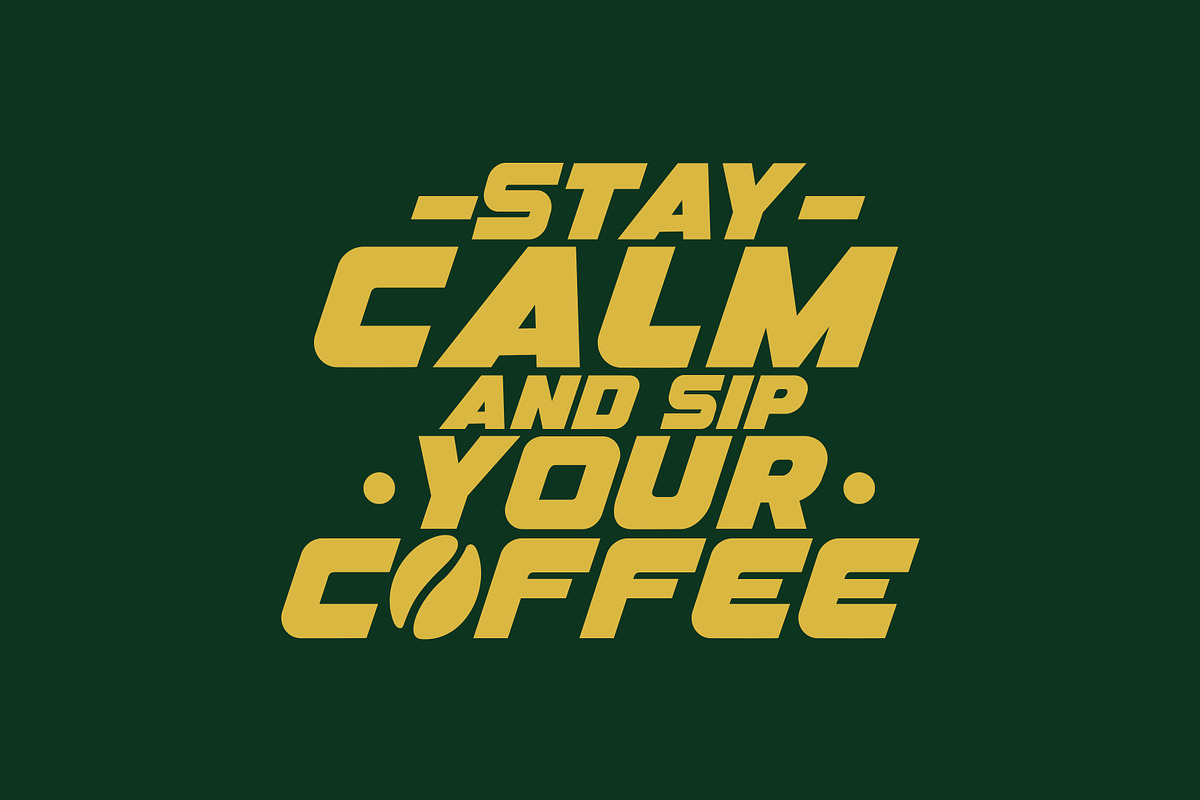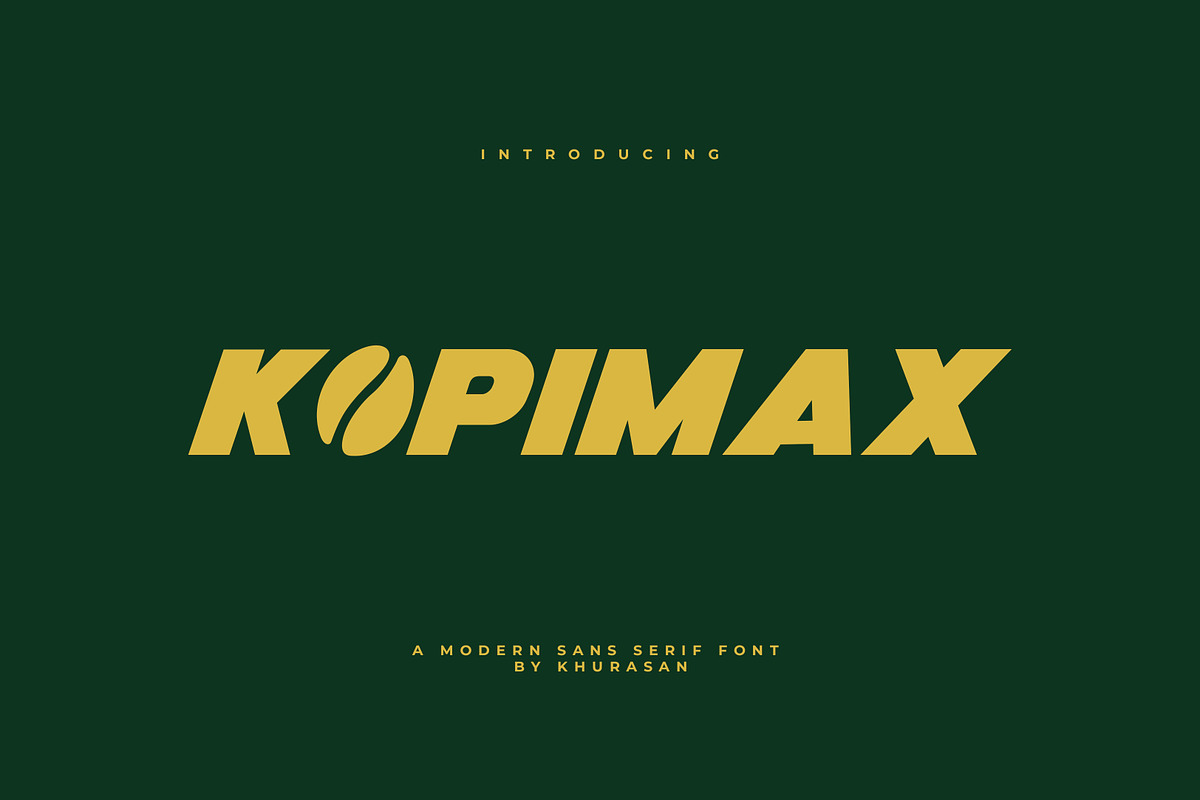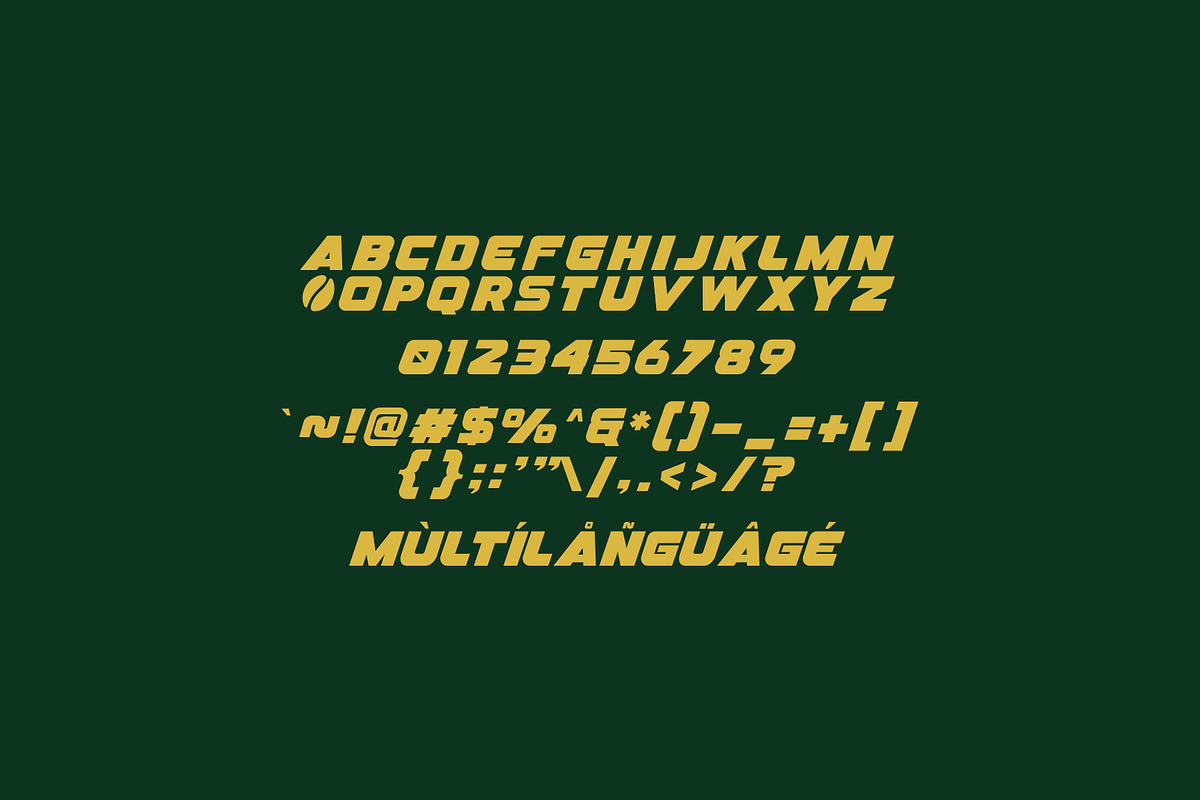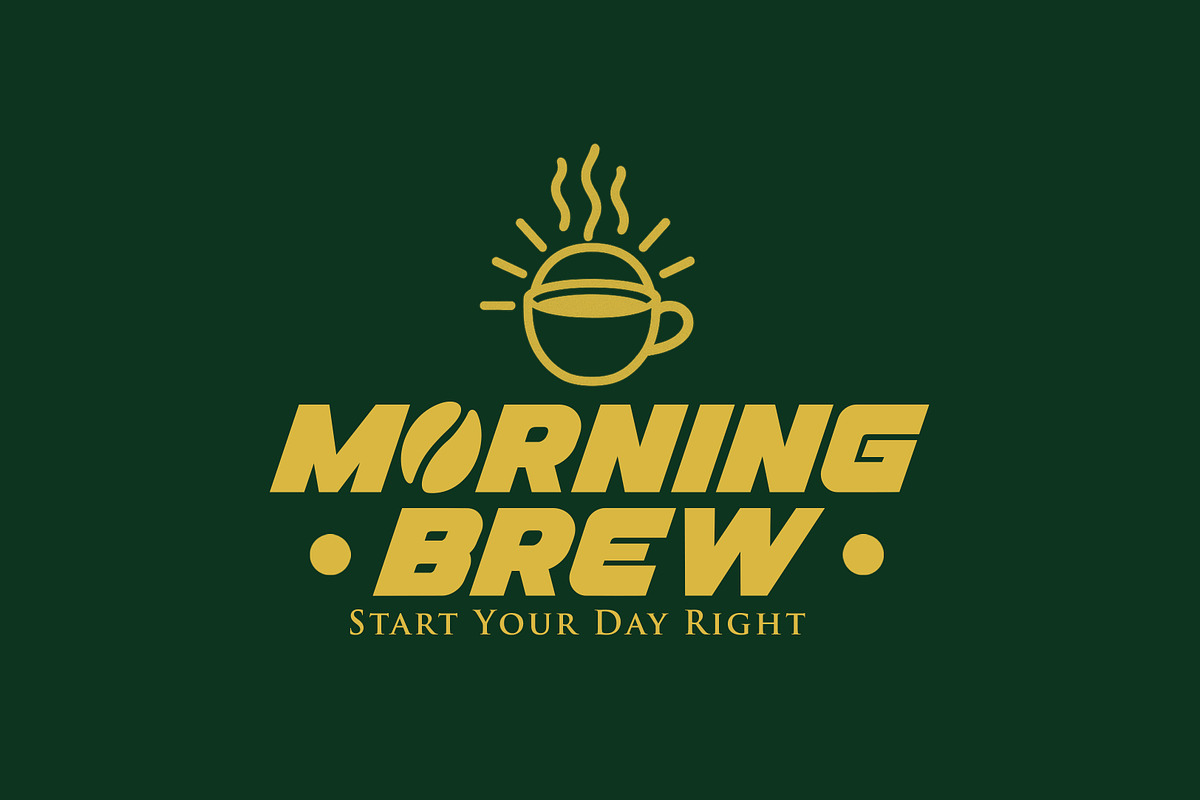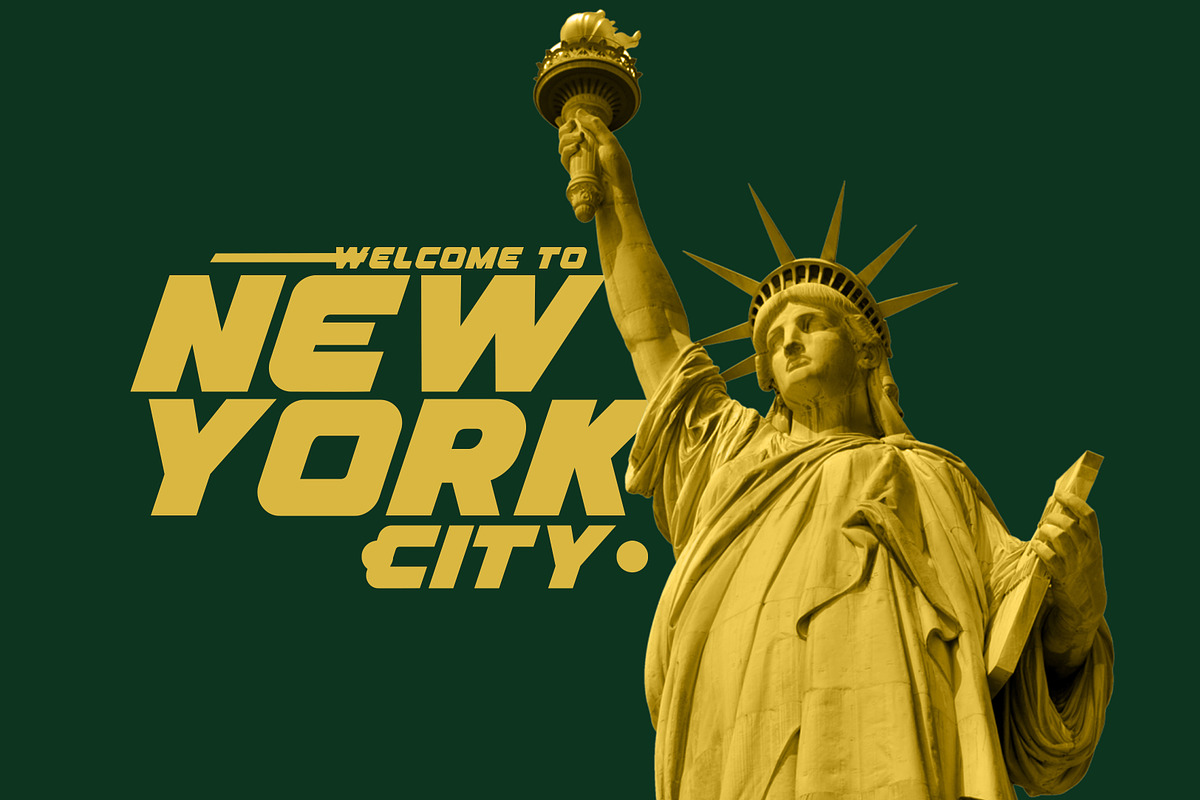
Kopimax
The Kopimax is a modern and unique sans serif font, with a bold font style and a coffee logo on the letter O. It's perfect for posters, logos, magazines, book covers, banners, and more! Get this unique handwritten font and use it to create beautiful designs! It can easily be combined with a wide variety of projects, so add it to your creative ideas and see how it makes them stand out!